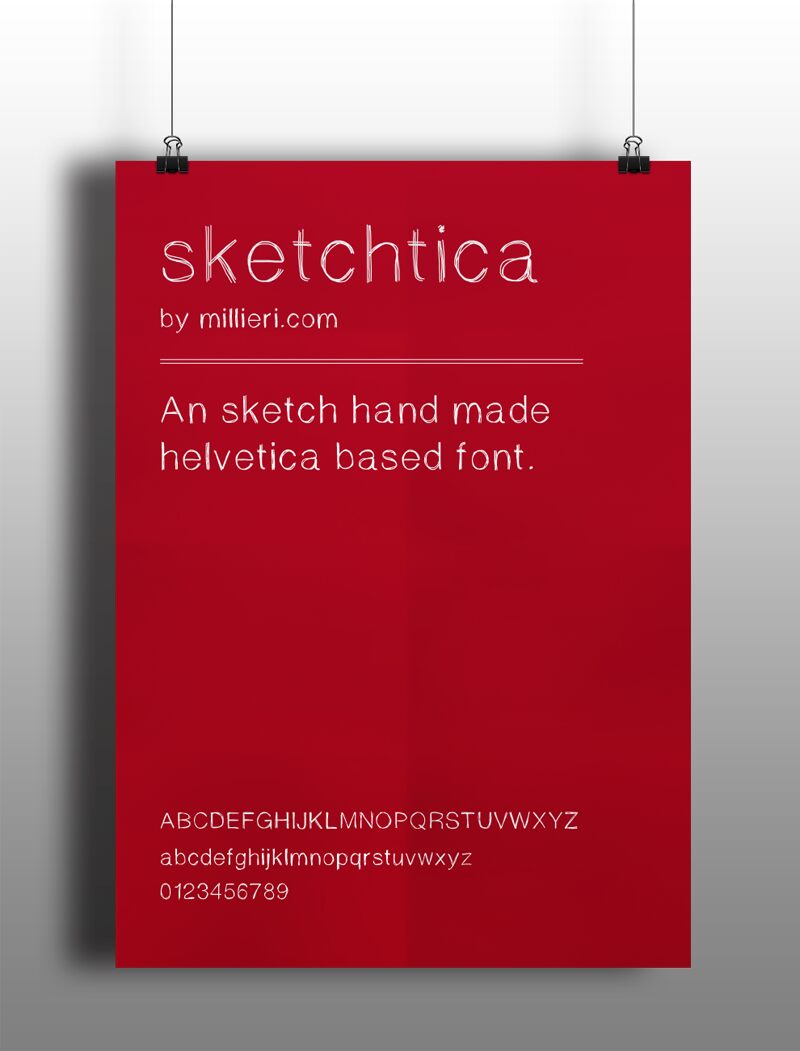
Sketchtica
Sketchtica is an Helvetica hand made free font. You can use in a personal and commercial designs. You dont have to mention the author but well be glad if you send the piece where you use it at: hola@millieri.com
Sketchtica es una tipografa gratuta hecha a mano y basada en la Helvetica. Es libre y vlida tanto para uso personal como profesional. No es necesario mencionar al autor, pero estaremos encantados que nos enviis los diseos en los que aparezca a: hola@millieri.com